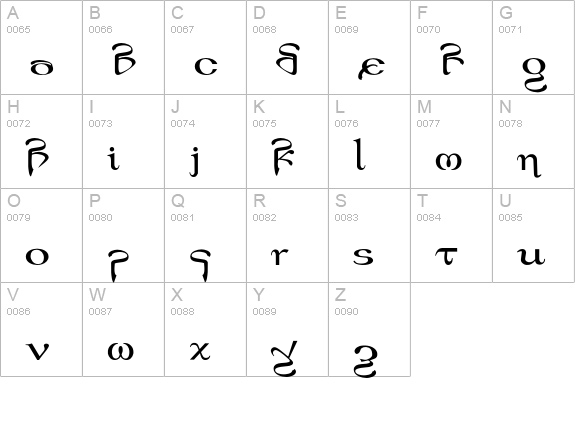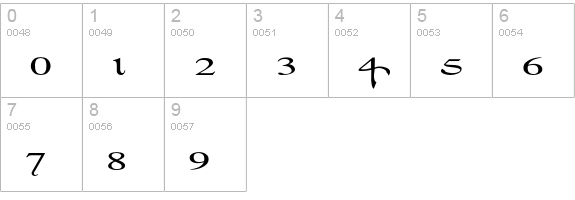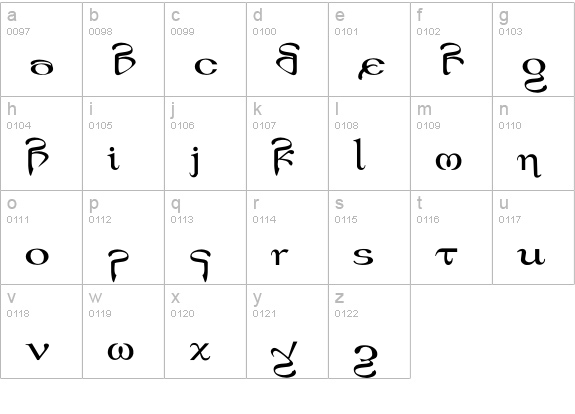
Innocence Font Details
Introducing the breathtakingly beautiful Innocence font, a timeless creation that embodies elegance, grace, and a touch of whimsy. This enchanting typeface is a true testament to the power of simplicity, with its clean lines and delicate curves that effortlessly capture the essence of innocence. Innocence font is a versatile display font that will add a touch of magic to any design project. Whether you're creating wedding invitations, logos, or branding materials, this font will effortlessly elevate your work to new heights. Its graceful strokes and gentle serifs make it perfect for conveying a sense of sophistication and refinement. But what truly sets Innocence font apart is the fact that it is free. Yes, you read that right! This exquisite font is freely available to download at FontsMarket.com. Now, you can bring a touch of elegance and innocence to your designs without breaking the bank. With its generous availability, Innocence font allows everyone to experience the beauty of typography without any limitations. Designed with love and attention to detail, Innocence font is a true labor of love. Its flawless execution and exquisite craftsmanship make it a must-have for designers and creatives alike. Whether you're a seasoned professional or a budding artist, this font will inspire and captivate, letting your creativity soar to new heights. So why wait? Experience the beauty and charm of Innocence font today. Download it for free at FontsMarket.com and embark on a journey of creativity and expression. Let this font be your companion as you create stunning designs that are sure to leave a lasting impression. Unleash your creativity and embrace the innocence within with Innocence font.